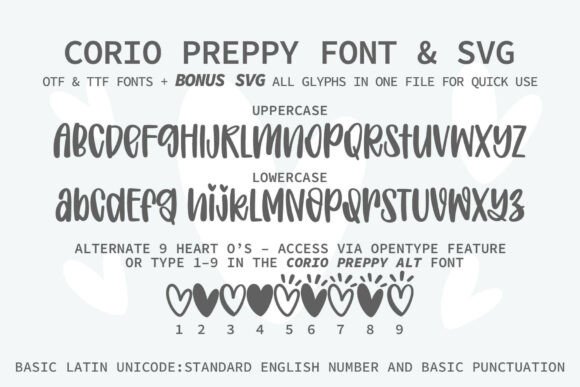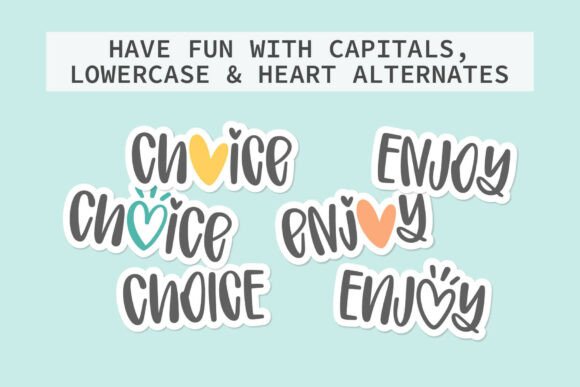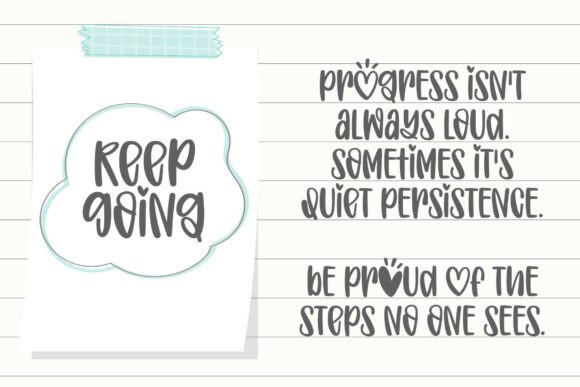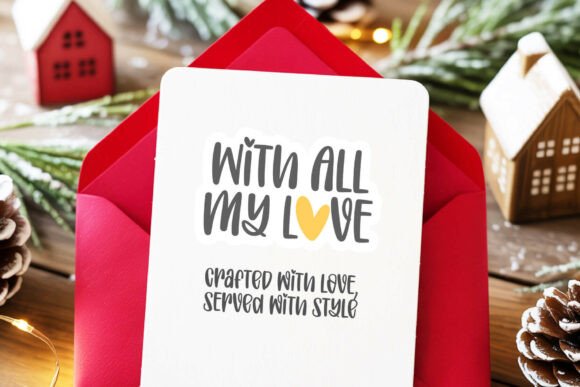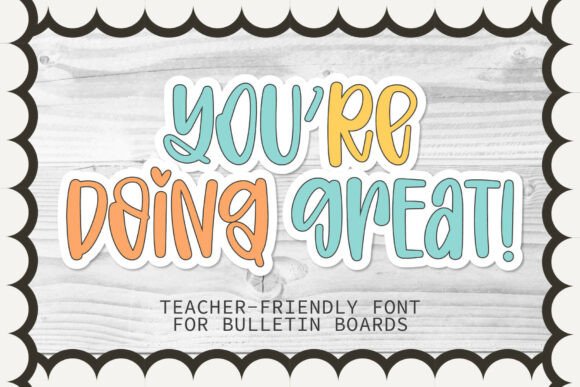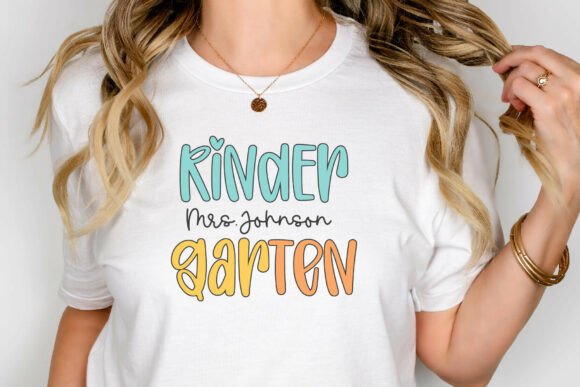
Introduction to Coriopreppy Font
Have you ever been stuck on a creative project, searching for the perfect font to bring your ideas to life? I know I have. That’s why I’m excited to introduce you to the Coriopreppy Font, a confident and trendy typeface that’s about to become your new favorite design resource. This font is a game-changer for anyone looking to add a touch of personality to their creative projects.
With its smooth letterforms and balanced structure, Coriopreppy Font is perfect for both titles and body text. Its girly-preppy personality makes it a great choice for planners, teacher resources, student projects, and digital crafts. Plus, it’s incredibly easy to customize, with multiple ways to access all 9 heart styles and a transparent background that makes it easy to use on any design.
Key Features of Coriopreppy Font
- High-quality, unique design that adds a creative touch to any project
- Transparent background, allowing for seamless integration with any design resource
- Perfect for use in creative projects, such as logos, branding materials, and digital artwork
- Unique characteristics include a playful, handwritten feel and a wide range of expressive styles
Honest Review: Coriopreppy Font
I recently stumbled upon the Coriopreppy Font, a free design resource that caught my eye. As a designer, I’m always on the lookout for high-quality fonts to enhance my creative projects.
One of the things that works well with this font is its modern and preppy aesthetic. It’s perfect for designs that need a touch of sophistication without being too formal. The font is also highly versatile, making it suitable for a wide range of creative projects.
Some of the key features that make the Coriopreppy Font stand out include:
- ✨ A transparent background, making it easy to overlay on images or other design elements.
- ✨ High quality, with crisp and clear lettering that’s perfect for printing.
However, I did encounter some limitations with this font. The font family is relatively small, with only a few weights and styles available.
- ⚠️ Limited font family options, which may not be suitable for complex design projects.
Overall, I’m impressed with the Coriopreppy Font and would definitely recommend it to designers looking for a high-quality, free design resource.
Tips for Getting the Most Out of Coriopreppy Font
Experiment with different font sizes, styles, and colors to add depth and visual interest to your design. Use Coriopreppy Font as a heading or title font to create a bold and eye-catching effect. You can also use it as a body font to create a cohesive and professional look.
Coriopreppy Font is ideal for creative projects such as branding, marketing materials, and social media graphics. It’s also great for presentations, documents, and other written content. With its high-quality design and transparent background, Coriopreppy Font is a versatile design resource that can be used in a variety of contexts.